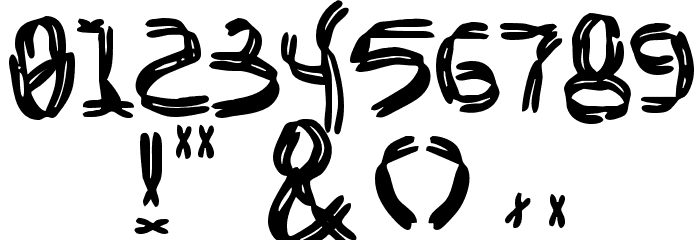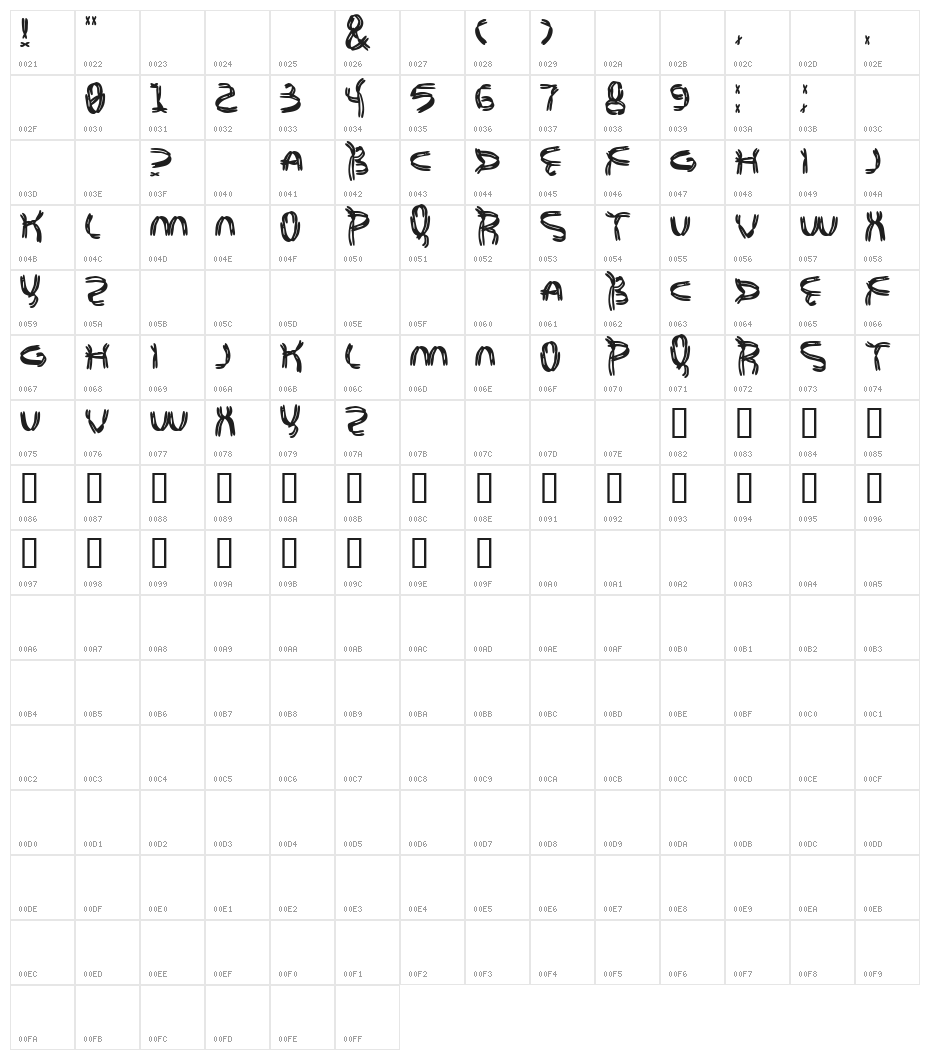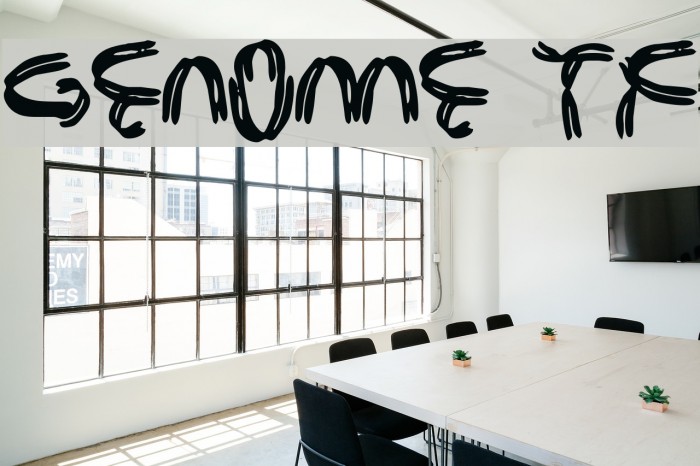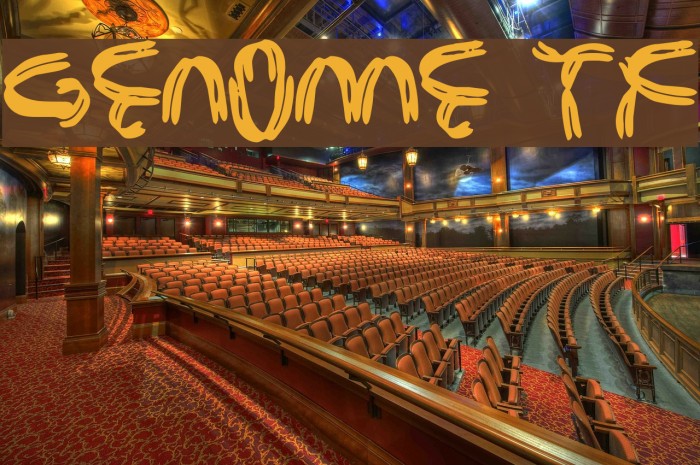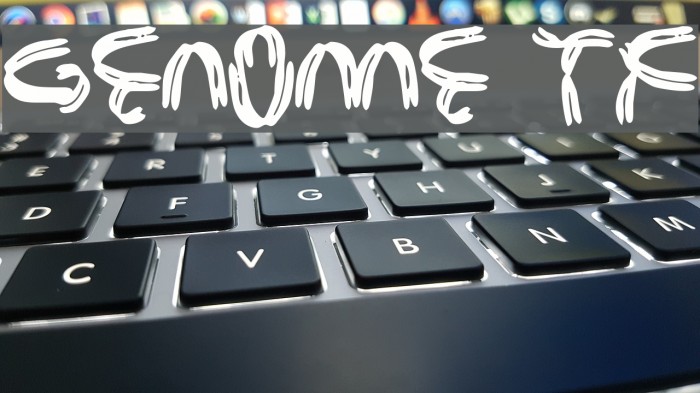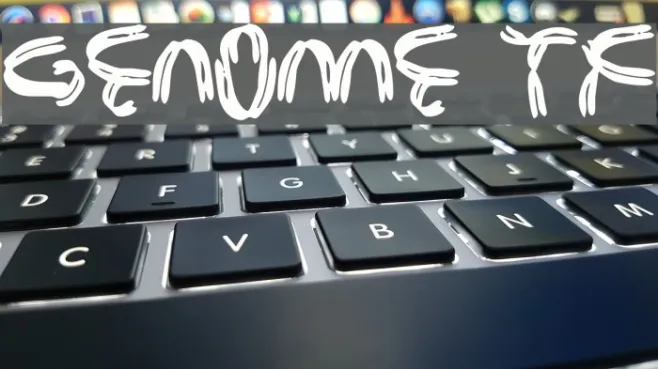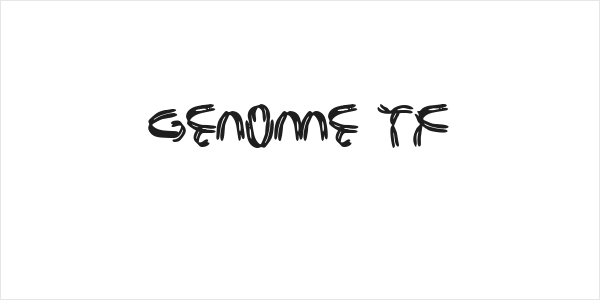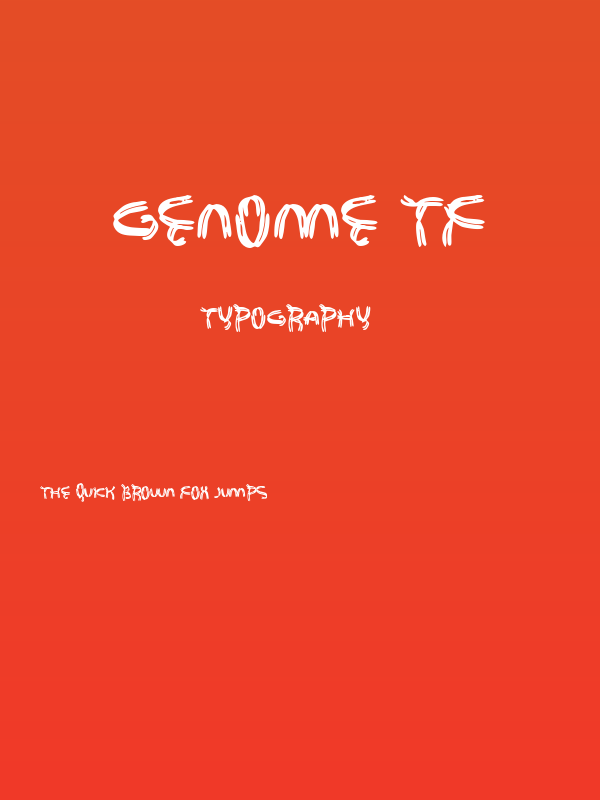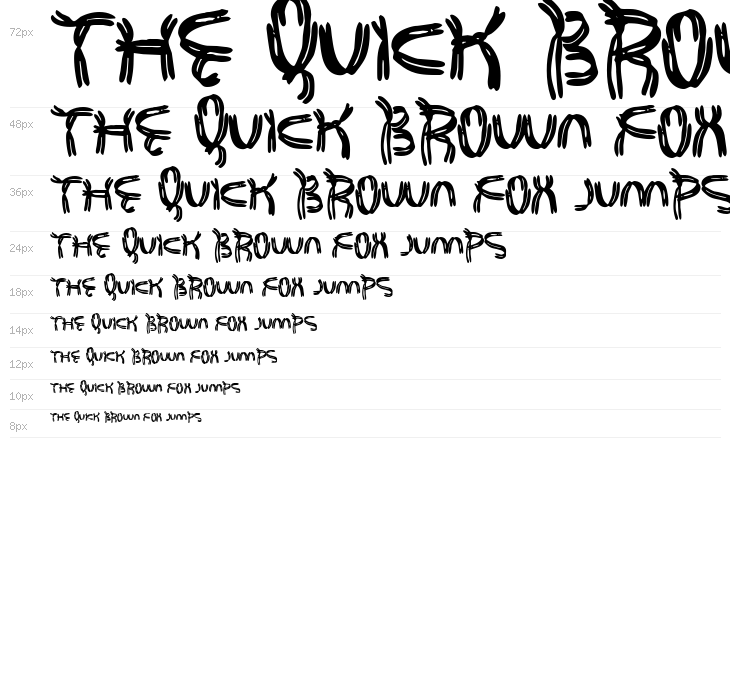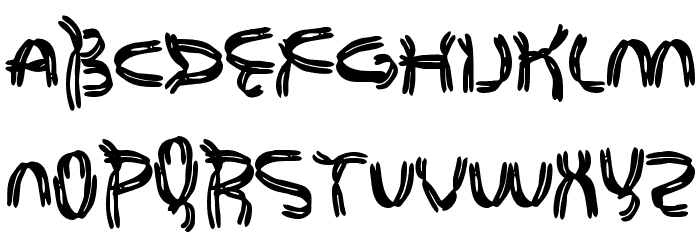
Genome tf Font
Genome tf Description
This font features a bold and expressive style with a hand-drawn appearance. The characters are uniquely crafted with a brush-like texture, giving them an organic and dynamic feel. Each letter is distinct, with varying stroke thicknesses that add to the font's artistic flair. The uppercase and lowercase letters maintain a consistent style, while the numbers and special characters complement the overall design. This font's playful and energetic look makes it suitable for creative projects that require a touch of personality and uniqueness.
| Overall Style | Artistic, Playful |
| Proposed Projects | Ideal for posters, album covers, artistic branding, and creative social media graphics. |